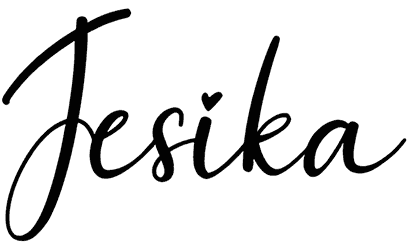
Jesika Font
Jesika font is like a fingerprint and can tell her story. This handwritten font gives a sense of humanity and warmth to any design project and creates a personal feeling that cannot be achieved using digital fonts.
Whether it’s a love letter, a wedding invitation, or a logo, this romantic font offers endless possibilities for customization and creativity. If you want to direct the tone of the whole project in a personal direction, Jesika can be an elegant and feminine choice.